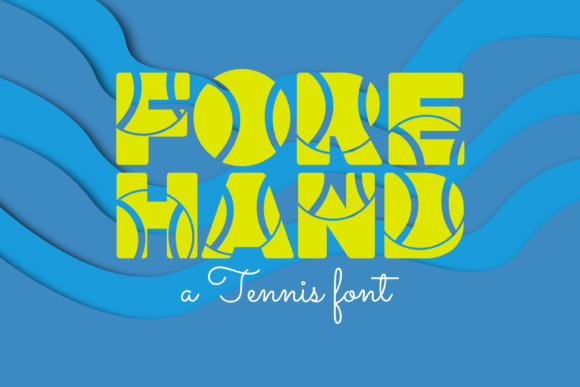
Journey into a world of boundless creativity with Forehand Font, the ultimate decorative font that ignites imagination and transforms your designs into captivating masterpieces. Crafted by the skilled hands of WADLEN, this font exudes a playful spirit, making it the perfect companion for themes centered around children, laughter, and joy.
Forehand Font's whimsical characters dance across the page, evoking a sense of wonder and enchantment. Each letter is a carefully crafted piece of art, adorned with delicate swirls, playful curves, and a touch of whimsy. Unleash your creativity and let Forehand Font guide you on a journey of artistic expression.
With Forehand Font at your fingertips, you'll never run out of ways to express yourself. Use it to design cheerful invitations for kids' birthday parties, create delightful storybooks that transport young minds to magical lands, or craft charming posters for school events. The possibilities are endless!
But Forehand Font's charm extends far beyond children's themes. Its versatility knows no bounds. Dive into DIY projects and add a touch of whimsy to handmade cards, personalized gifts, and home décor items. Let Forehand Font bring a smile to your loved ones' faces with its cheerful disposition.
Dive into Forehand Font's world of creativity and let your imagination soar. Whether you're a seasoned designer or just starting your creative journey, this font will elevate your designs to new heights. Embrace the playful spirit of Forehand Font and watch as your creations come to life with a touch of magic.